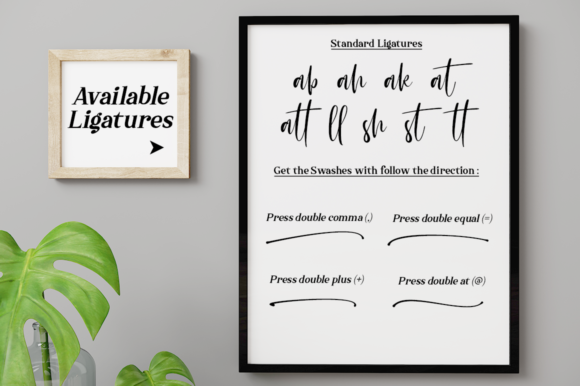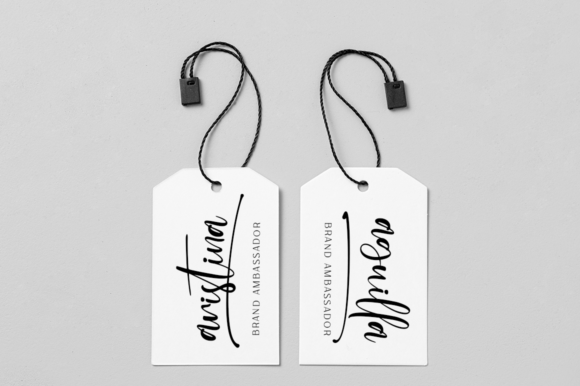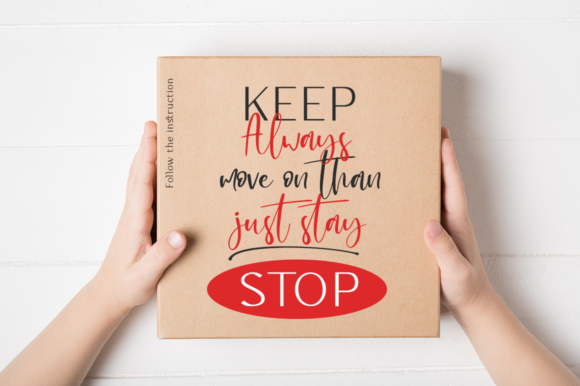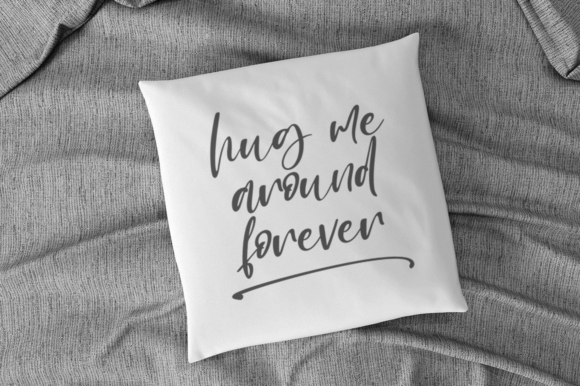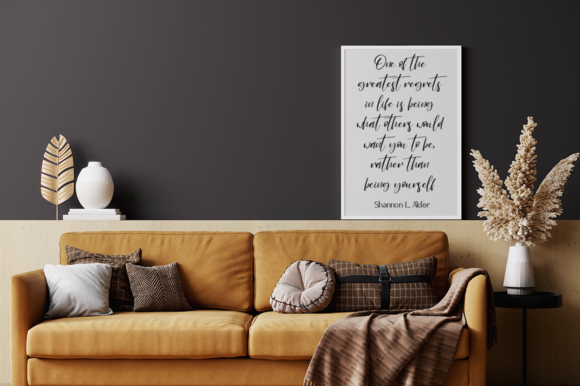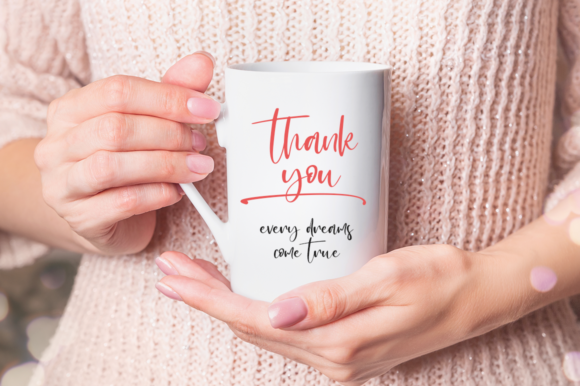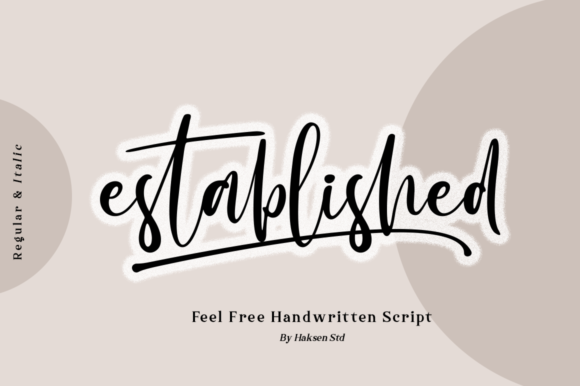
Introducing Established Font: The Perfect Handwritten Style for Your Designs
Are you looking for a font that exudes elegance, romance, and sophistication? Look no further than Established Font, a stylish and beautiful handwritten font that’s perfect for adding a personal touch to your designs. In this article, we’ll dive into the features and benefits of Established Font, and explore how it can elevate your creative projects.
What is Established Font?
Established Font is a stunning handwritten font that’s designed to bring a touch of whimsy and romance to your designs. With its dainty and joyful feel, this font is ideal for creating beautiful wedding invitations, cards, and other designs that require a personal and elegant touch. Whether you’re a designer, crafter, or DIY enthusiast, Established Font is sure to become a favorite in your collection.
Key Features of Established Font
- Handwritten style: Established Font boasts a beautiful, handwritten style that’s perfect for creating unique and personalized designs.
- Dainty and joyful feel: This font has a light, airy feel that’s perfect for creating romantic and whimsical designs.
- Romantic and elegant: Established Font is designed to add a touch of sophistication and romance to your designs, making it perfect for wedding invitations, cards, and other special occasions.
- Versatile: This font can be used for a wide range of design projects, from digital designs to print materials.
Benefits of Using Established Font
So why choose Established Font for your designs? Here are just a few benefits of using this beautiful font:
- Adds a personal touch: With its handwritten style, Established Font adds a personal touch to your designs that’s hard to replicate with other fonts.
- Creates a romantic feel: This font is perfect for creating romantic and whimsical designs that are sure to capture the hearts of your audience.
- High-quality: This font is designed to deliver high-quality results, with crisp and clear lines that will look great in any design.
Design Ideas Using Established Font
So what can you create with Established Font? Here are a few design ideas to get you started:
- Wedding invitations: This font is perfect for creating beautiful and romantic wedding invitations that will set the tone for the big day.
- Greeting cards: Established Font is ideal for creating personalized greeting cards for special occasions like birthdays, anniversaries, and holidays.
- DIY crafts: This font can be used for a wide range of DIY crafts, from scrapbooking to woodworking.
- Digital designs: Established Font can be used for digital designs like social media graphics, blog posts, and email newsletters.
Tips for Using Established Font
Here are a few tips for getting the most out of Established Font:
- Experiment with different sizes: This font looks great in a variety of sizes, so don’t be afraid to experiment to find the perfect fit for your design.
- Pair with other fonts: Established Font pairs well with other fonts, so try combining it with a bold font for added contrast.
- Use for headlines and body text: This font is versatile enough to be used for both headlines and body text, making it a great addition to any design project.
Established Font is a beautiful and stylish handwritten font that’s perfect for adding a personal touch to your designs. With its dainty and joyful feel, romantic and elegant style, and versatile uses, this font is sure to become a favorite in your collection. Whether you’re a designer, crafter, or DIY enthusiast, Established Font is the perfect choice for any design project that requires a touch of whimsy and romance.